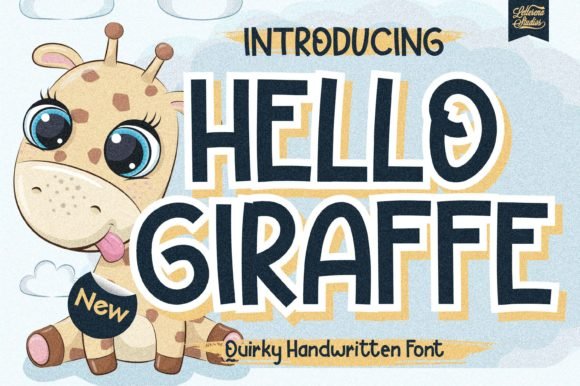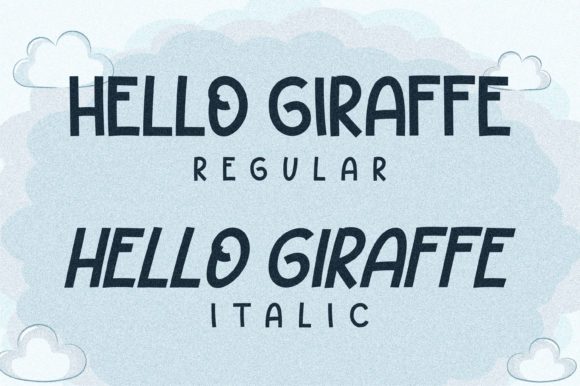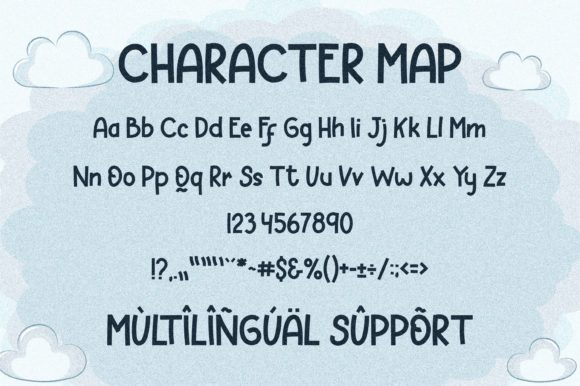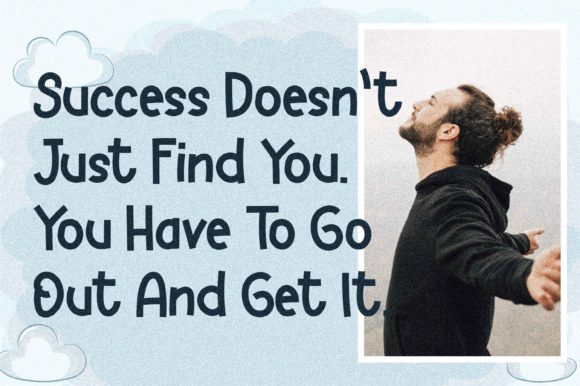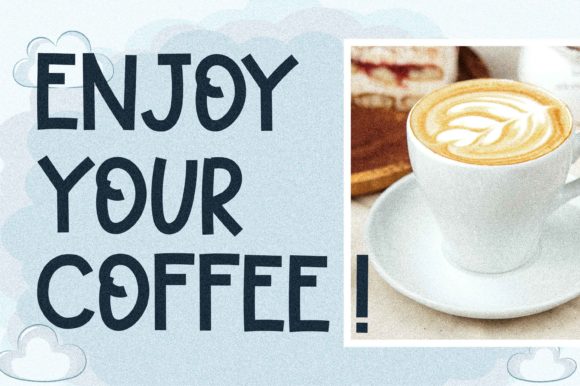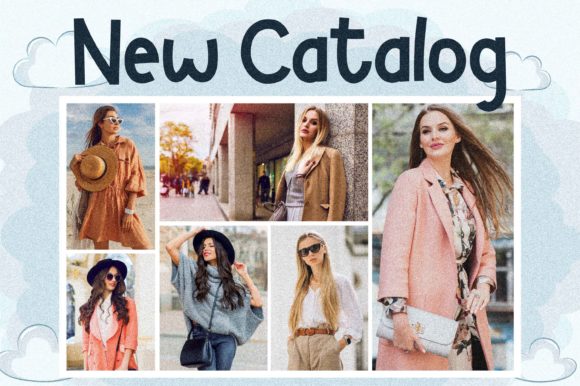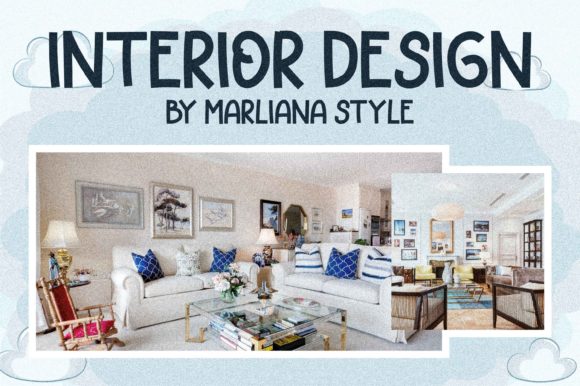
The Perfect Typographic Companion: Hello Giraffe Font
Have you ever been brainstorming a new project and suddenly the words start flowing, the ideas start pouring in, and the creative juices are in full swing? It’s a magical moment that every designer can relate to. The only thing missing is the perfect font to bring your vision to life. This is where the Hello Giraffe Font comes in – a quirky and strong lettered display font that will elevate your projects and leave a lasting impression.
Designed to add a touch of personality to your designs, Hello Giraffe Font is perfect for anyone looking to make a statement. Its unique character and confident lines make it an invaluable addition to any designer’s toolkit. Whether you’re working on a branding project, a marketing campaign, or a social media graphic, the Hello Giraffe Font is sure to bring a smile to your face and a touch of whimsy to your design.
Hello Giraffe Font Key Features
- Font Family: Hello Giraffe is a unique, handwritten font designed for creative and artistic purposes.
- Unique Characteristics: Features a distinctive, playful, and whimsical design, perfect for adding a touch of personality to branding, advertising, and editorial content.
- Font Style: Available in 6 different styles, including Regular, Italic, Bold, Bold Italic, Script, and Initials, offering versatility and flexibility in design applications.
Hello Giraffe Font Review
Overall, I think the Hello Giraffe Font is a cute and playful addition to any design project. Here are some things that I think work well:✨
- Unique character set: The font has a unique character set that includes a wide range of glyphs, making it perfect for projects that require a bit of whimsy.
- Great for display text: The font is best used for display text, such as headings and titles, where its playful nature can really shine.
- Works well for illustrations: The font pairs well with illustrations and graphics, adding a fun and playful touch to any design.
However, there are some limitations to consider:⚠️
- Not ideal for body text: While the font is great for display text, it can be a bit difficult to read in large blocks of body text.
- Limited language support: The font may not support all languages, which could be a problem for designers working on international projects.
Overall, I think the Hello Giraffe Font is a fun and creative choice for designers looking to add some personality to their projects. While it may have some limitations, its unique character set and playful nature make it a great choice for display text and illustrations.
For best results, use the Hello Giraffe font in a bold or italic style to emphasize text.
For a unique look, use the Hello Giraffe font in combination with other creative fonts and graphics.
Use the Hello Giraffe font sparingly to add a touch of whimsy and personality to your presentation or document.
The Hello Giraffe font is ideal for:
Children’s book covers and illustrations
Party invitations and decorations
Creative business branding and marketing materials